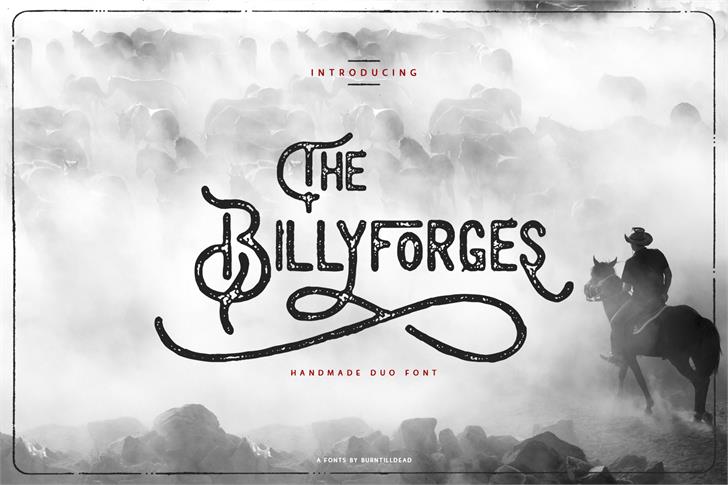
Billyforges Typeface
Introducing Billyforges. It is was designed and shares by Burntilldead. Billyforges – handwritten stretched vintage typeface comes. Billyforges perfectly combines elegance and roughness, so you can to use it for a wide range of purposes. Number one – a vintage logotypes. Billyforges created by vintage lover for vintage lovers and is great suited for the main text on the logotype. It’s also suitable for t-shirt prints, business cards, flyers, posters, ads, restaurant menus, signs, typography design, quotes and any graphic design.